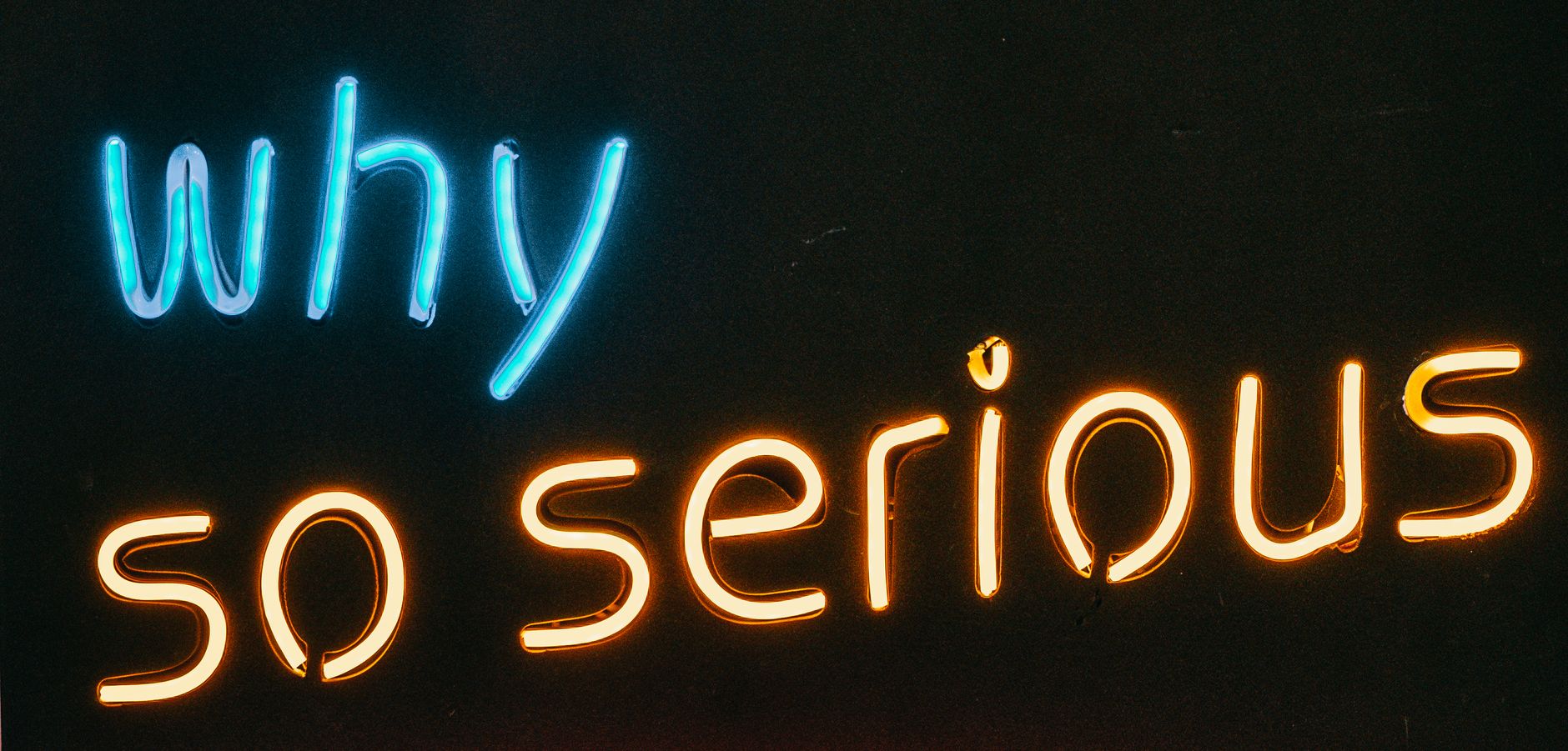
You have spent hours perfecting your website's typography. The hierarchy is clean, the line heights are comfortable, and the font weight is set to a precise, elegant 400.
Then, you toggle on dark mode.
Suddenly, your sleek, sophisticated sans-serif looks blocky, bloated, and aggressively bold. You double-check your DevTools. The CSS still says font-weight: 400. The font file is exactly the same. So why does your text look like it just gained ten pounds in the dark?
This isn't a browser rendering bug. It is a mix of human biology, physics, and screen rendering technology. Here is why fonts look fatter in dark mode—and the CSS secrets you need to make them look weightless again.
To understand why this happens, we have to look at how our eyes and screens work. There are two main culprits behind the dark-mode bloating effect: the Irradiation Illusion and Subpixel Rendering.
Discovered by Galileo and later detailed by physicist Hermann von Helmholtz, the irradiation illusion is a physiological phenomenon where light areas on a dark background appear larger than dark areas of the same size on a light background.
In our eyes, light-sensitive photoreceptors get overstimulated by bright light. This light "bleeds" over into neighboring inactive receptors on our retinas. When reading white text on a black background, the light from the letters spills into the surrounding darkness, making the stroke width of the characters look physically thicker to our brains.
To make fonts look smooth on digital screens, operating systems use anti-aliasing. Standard subpixel rendering (like Microsoft's ClearType or macOS's Quartz) uses the red, green, and blue (RGB) subpixels of a monitor to smooth out the edges of vector shapes.
On a light background, this works beautifully. On a dark background, however, the subpixel color fringing can create a subtle "halo" or glow around white text, making the letters appear wider and fuzzier than they actually are.
Fortunately, we do not have to accept bloated typography in our dark themes. We can use a few modern CSS techniques to visually balance our typefaces across both modes.
The quickest way to slim down text in dark mode is to change how the browser handles anti-aliasing. By default, browsers use subpixel anti-aliasing. We can force them to use grayscale anti-aliasing instead, which discards the subpixel color fringing and renders text with pure transparency.
Add this CSS to your dark mode styles:
How it works: Switching to antialiased instantly thins out the letterforms, stripping away the artificial subpixel weight.
Note: Use this selectively. Grayscale anti-aliasing can sometimes make light text on dark backgrounds look slightly too thin on low-resolution screens, but for modern high-DPI (Retina) displays, it works like magic.
If you are using variable fonts (and you should be!), you have a much more precise tool at your disposal. Instead of turning off subpixel rendering, you can subtly dial back the actual weight of the font.
With variable fonts, you aren't restricted to steps of 100 (like 400 or 500). You can set the weight to any integer.
Reducing the weight by roughly 10% to 15% in dark mode preserves the exact visual weight of your light theme without sacrificing the benefits of subpixel rendering.
The intensity of the irradiation illusion is directly proportional to contrast. High-contrast displays (pure white #FFFFFF text on pure black #000000 backgrounds) cause the maximum amount of light bleed.
By softening your dark mode colors, you can drastically reduce the visual bloat:
Reducing the contrast not only prevents the font from looking bloated, but it also drastically reduces eye strain for your users.
Great design is all about optical balance, not just mathematical consistency. While your design system might dictate a font-weight of 500 for medium text, your eyes should always be the final judge.
When building out your next dark mode theme, remember to:
By adjusting for how the human eye perceives light in the dark, you can ensure your typography remains clean, readable, and weightless.